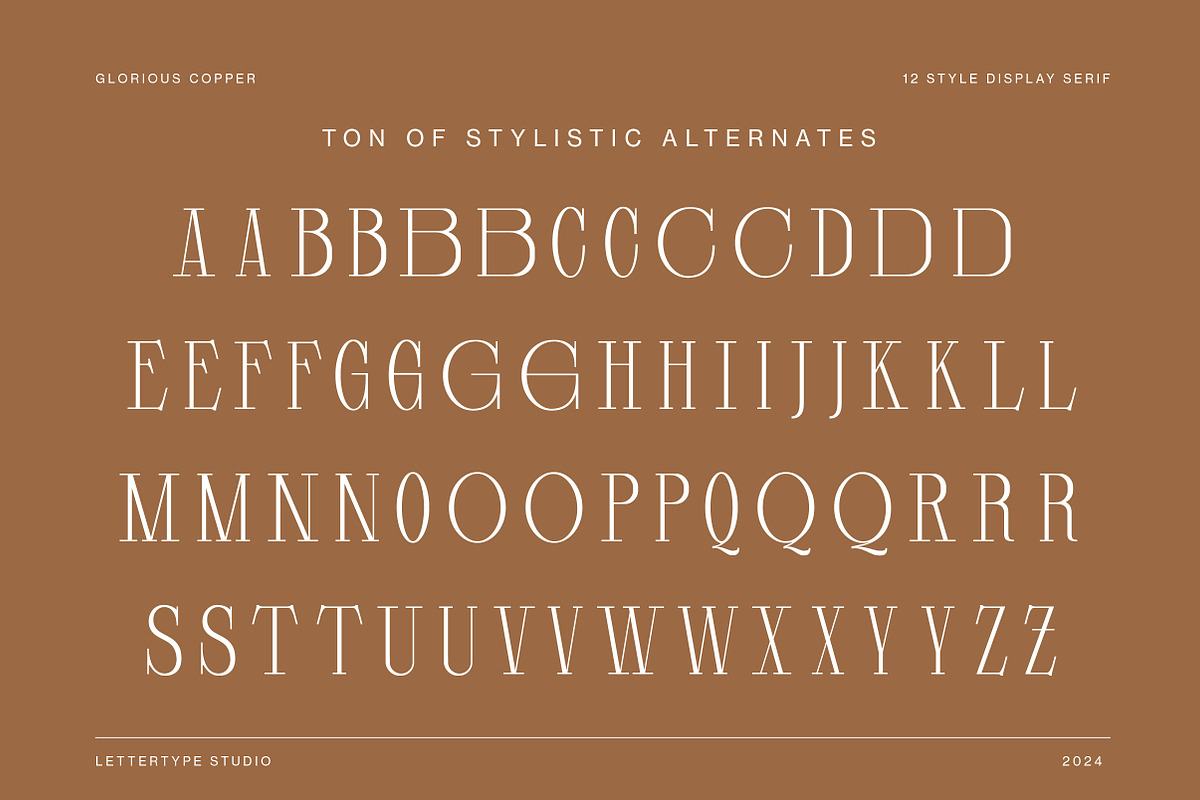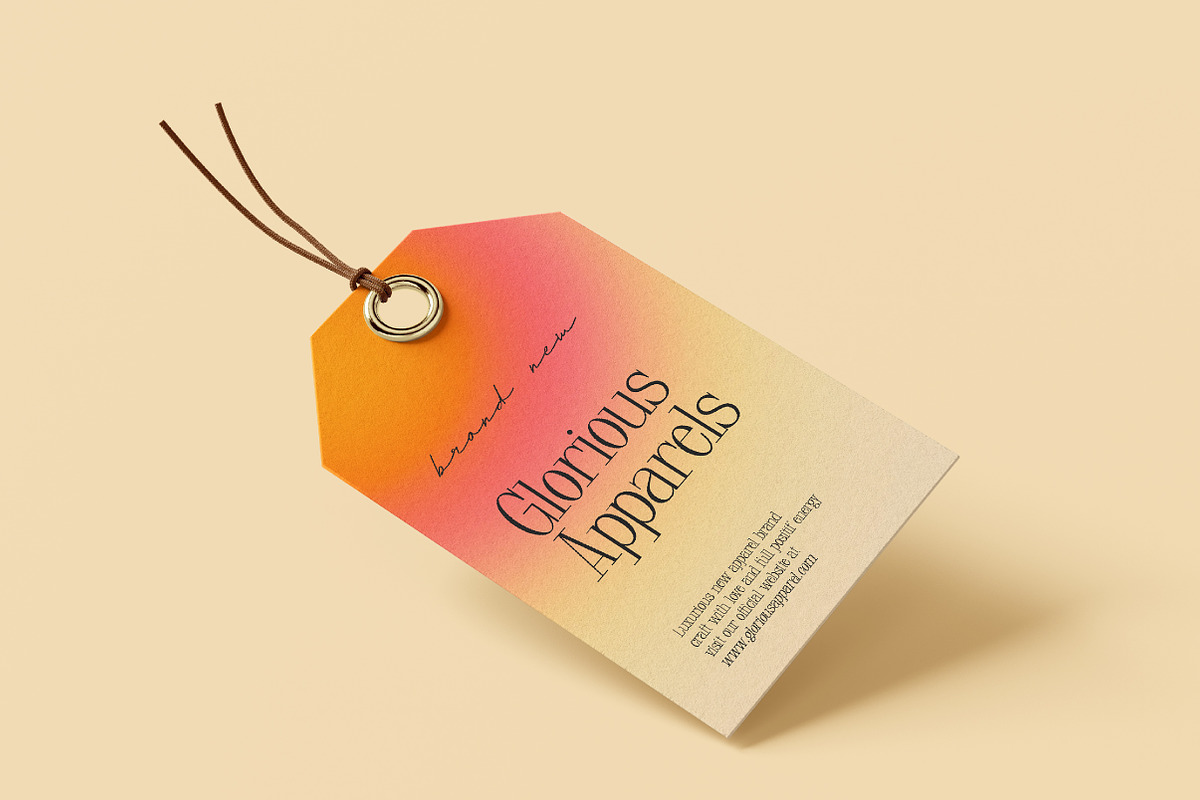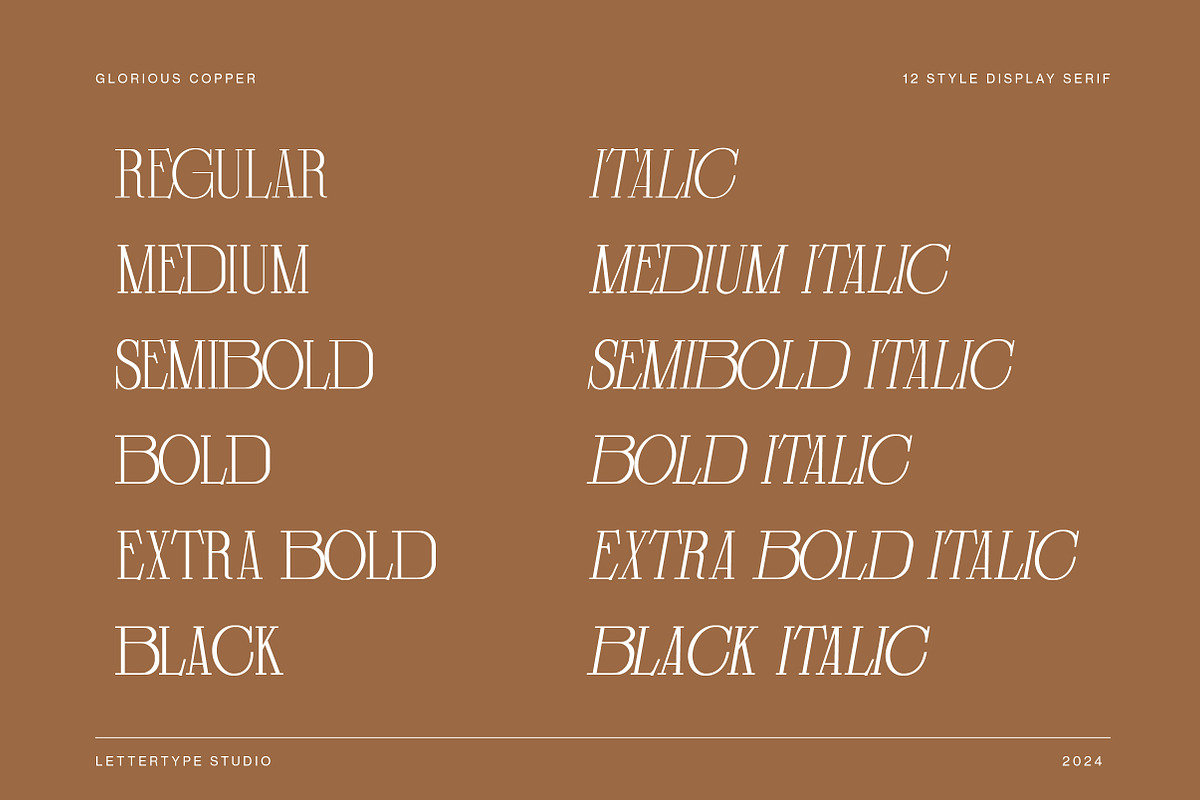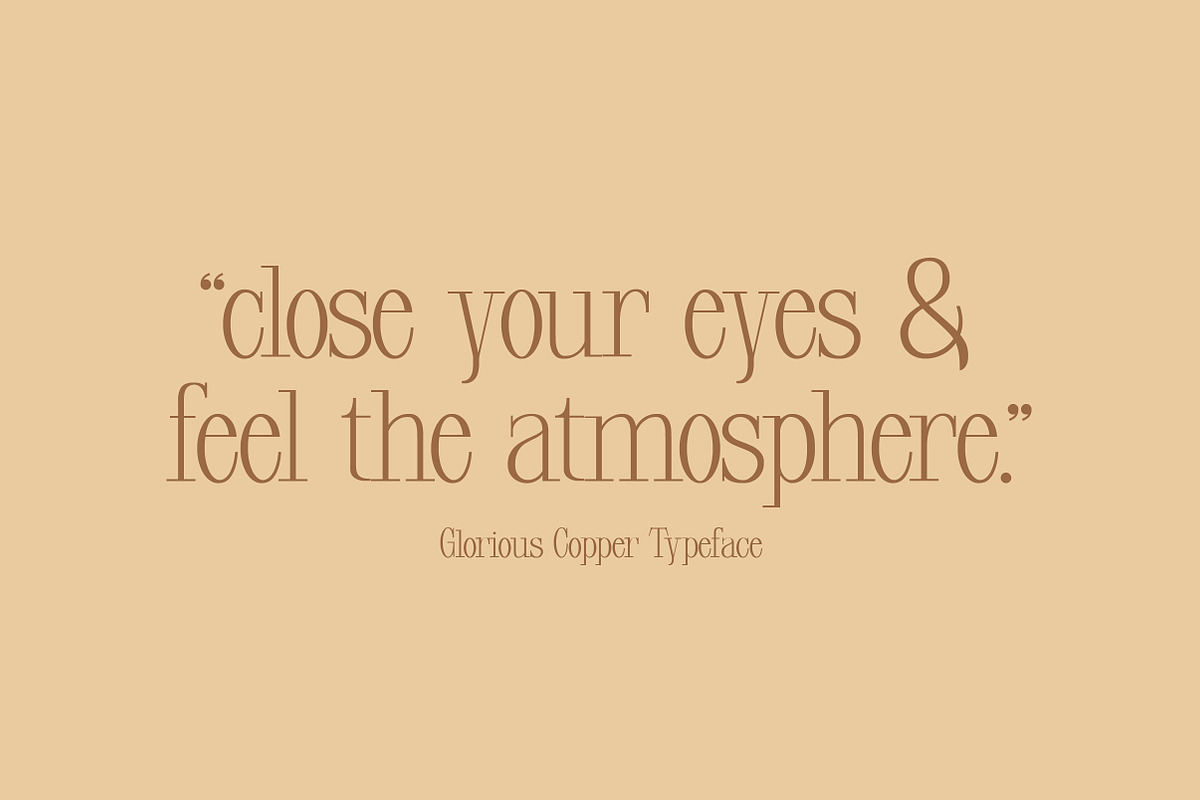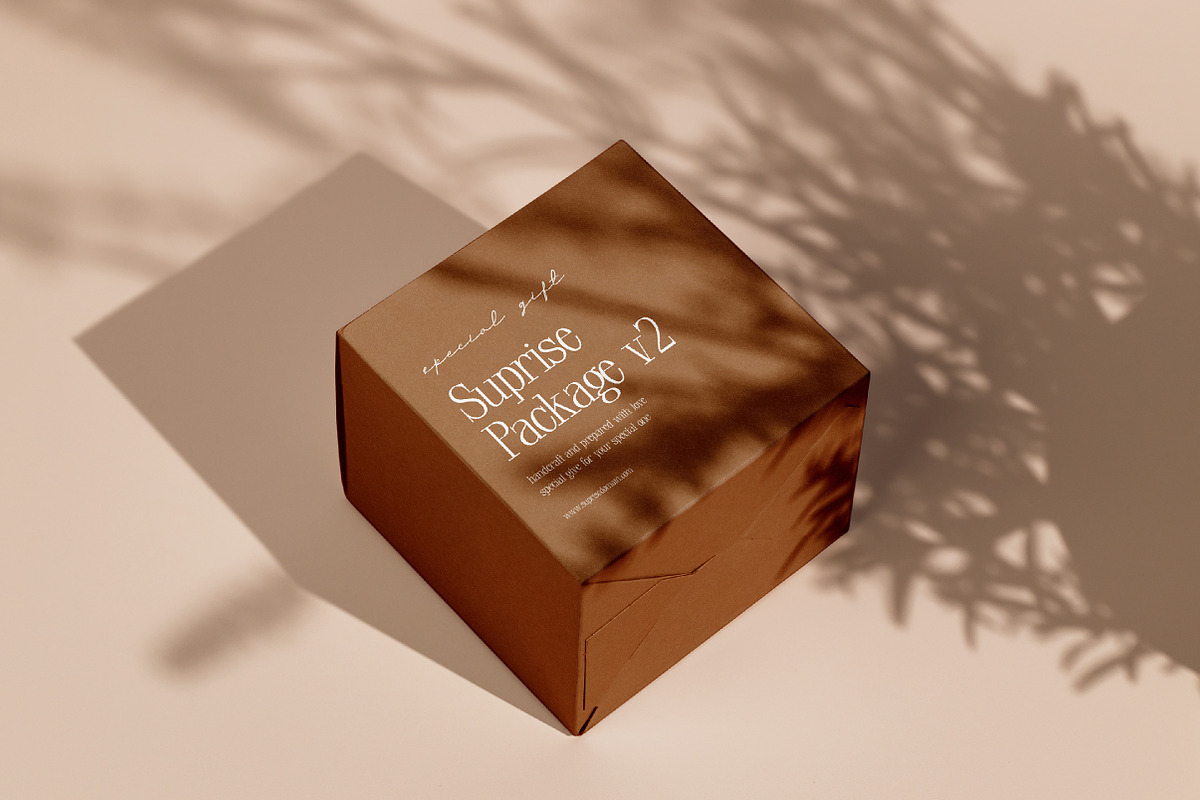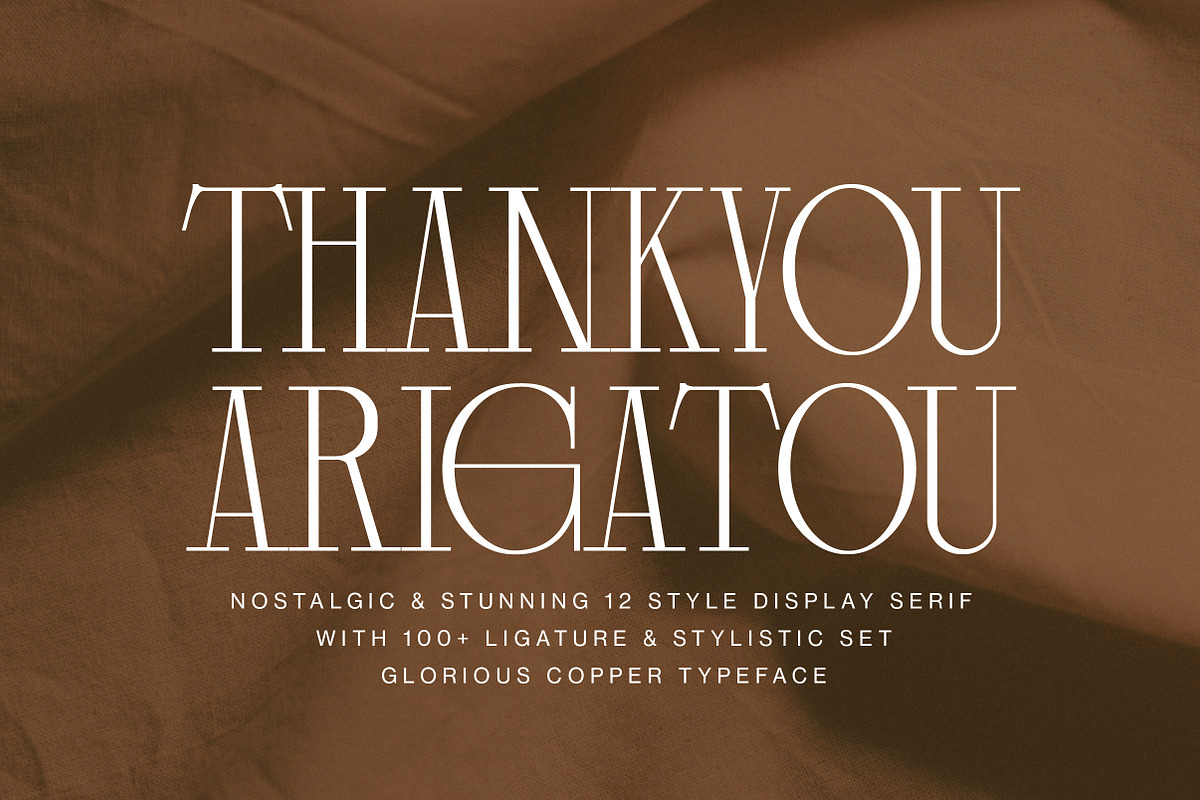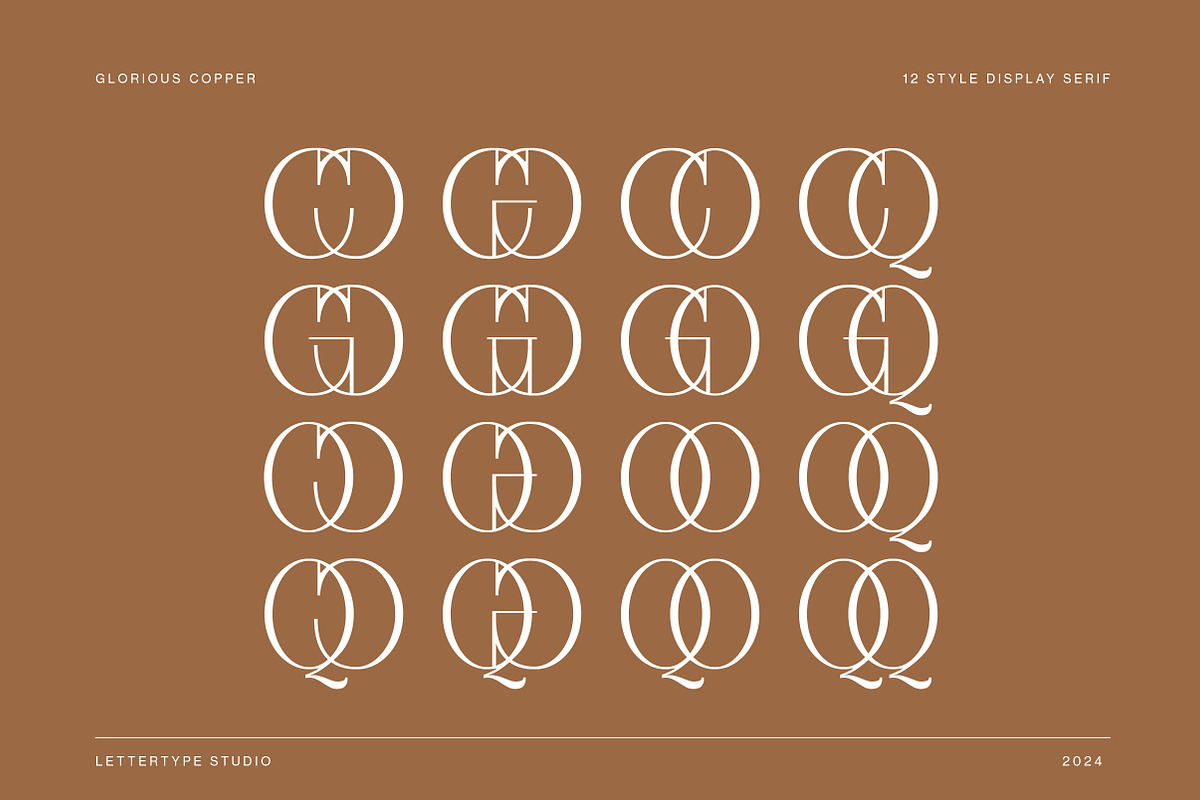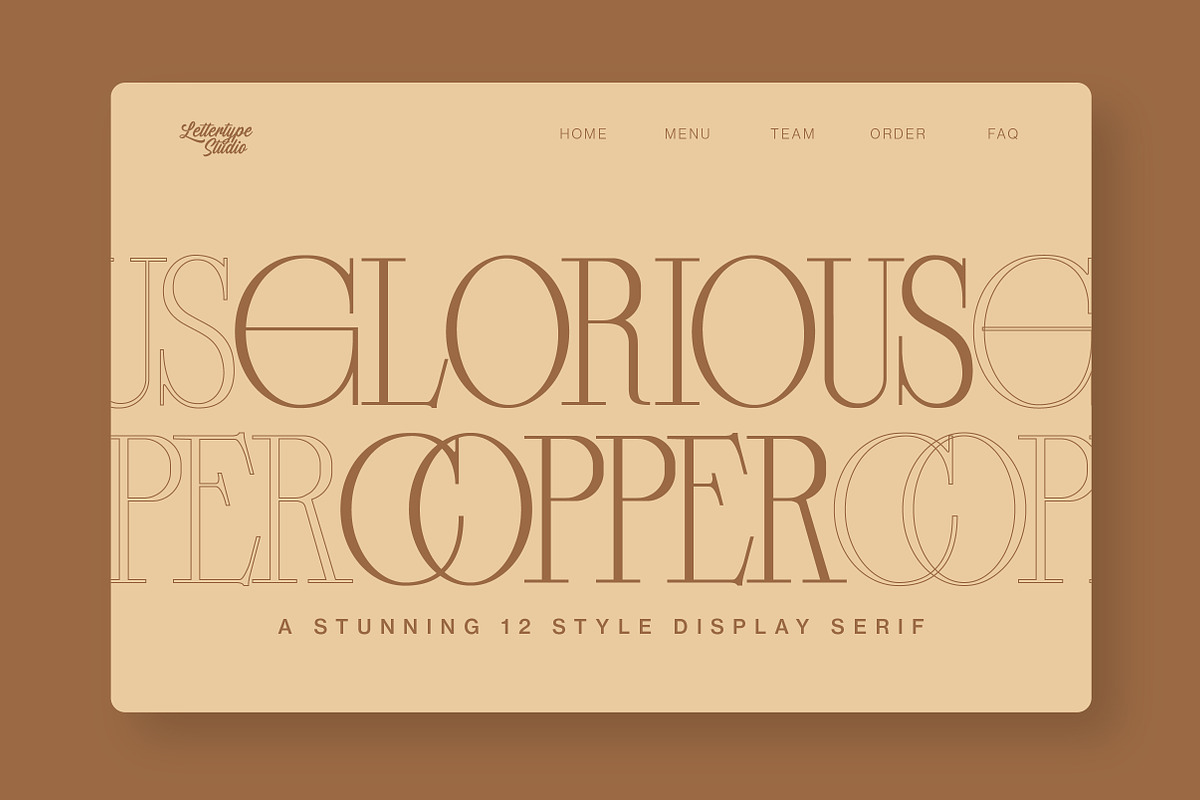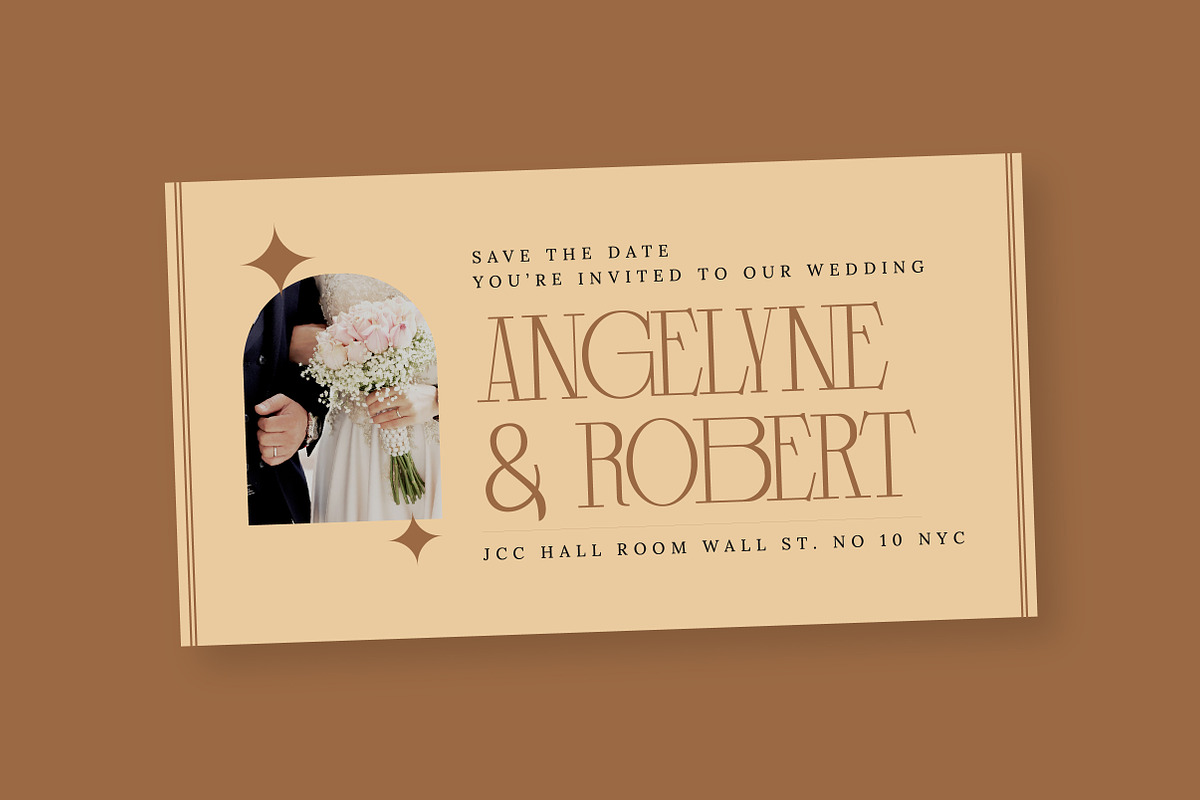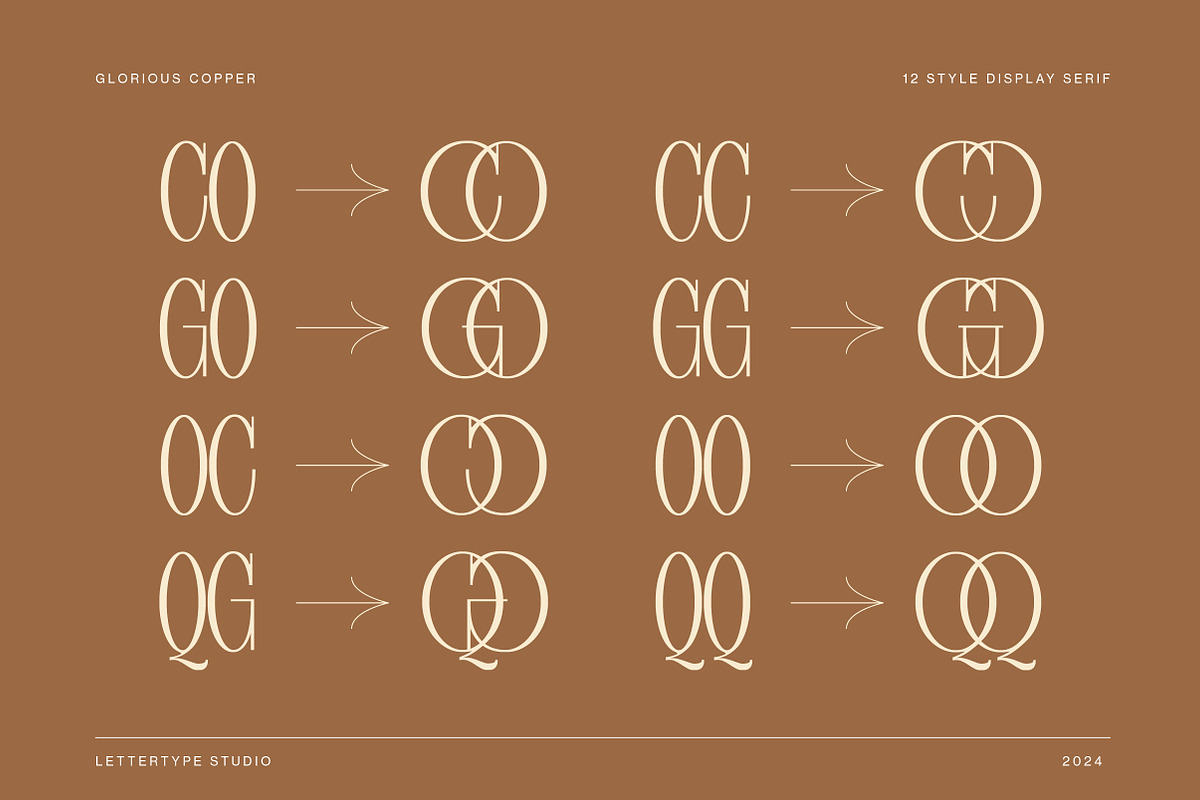
Glorious Copper Family
Glorious Copper is a nostalgic & stunning 12 style display serif with 100+ ligature & stylistic set.
Glorious Copper is perfect for vintage vibes, logo design, classic & vintage poster layouts, branding, signage, wedding invitations, fashion, lookbooks, book covers, packaging, food & beverages, and also good for quotes, or simply as a stylish text overlay to any background image and much more!
Glorious Copper Features:
- Lowercase & Uppercase
- Alternates & Ligature
- Font Family (12 Styles)